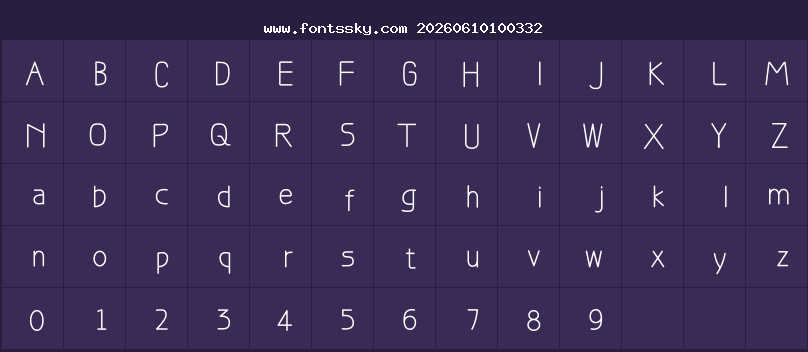
• Font Name: 峄山碑篆体
• Full Font Name: 峄山碑篆体
• Description: 平方造字团出品
About 峄山碑篆体.ttf
峄山碑篆体.ttf is a modern, elegant sans-serif font designed for ultimate readability and visual harmony. Perfect for branding, headlines, web design, and print materials.